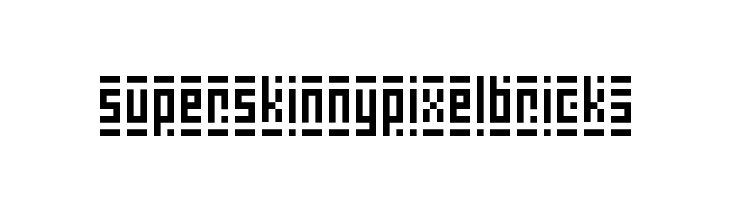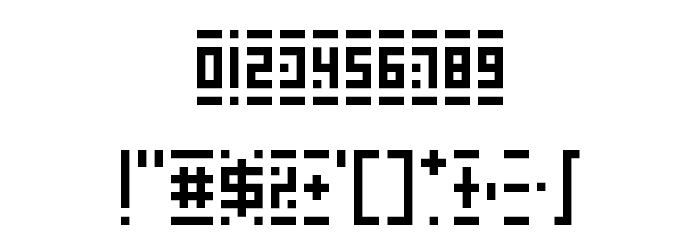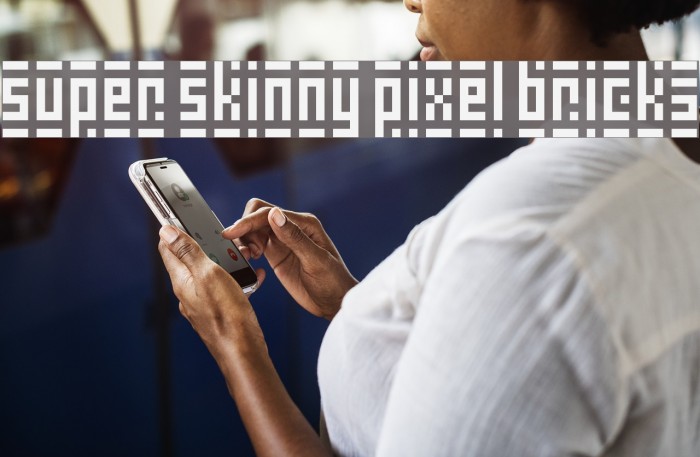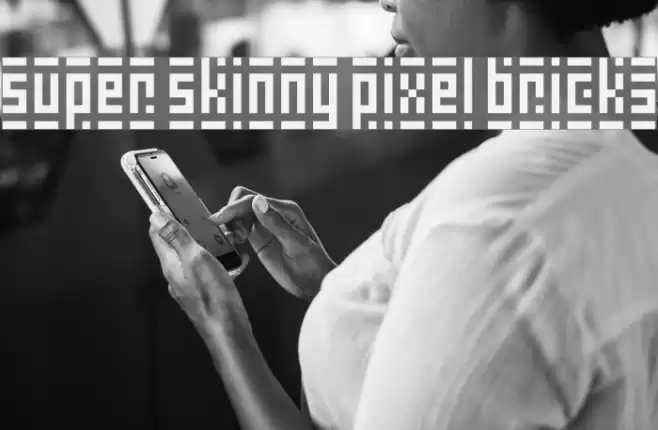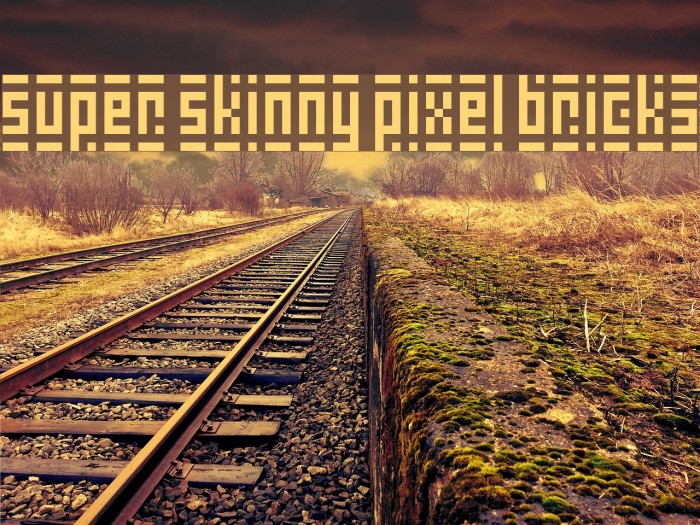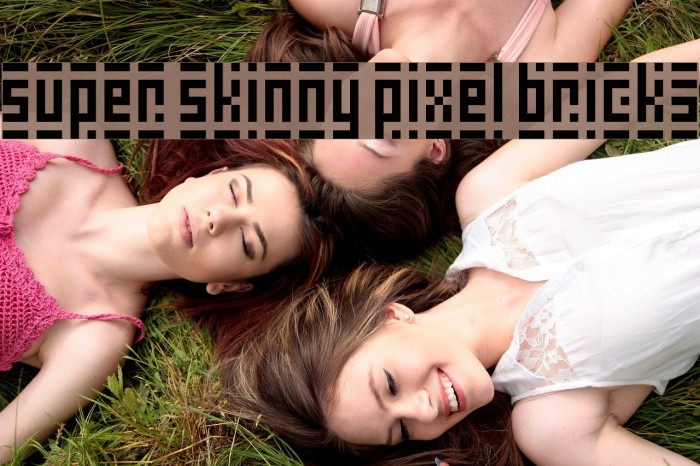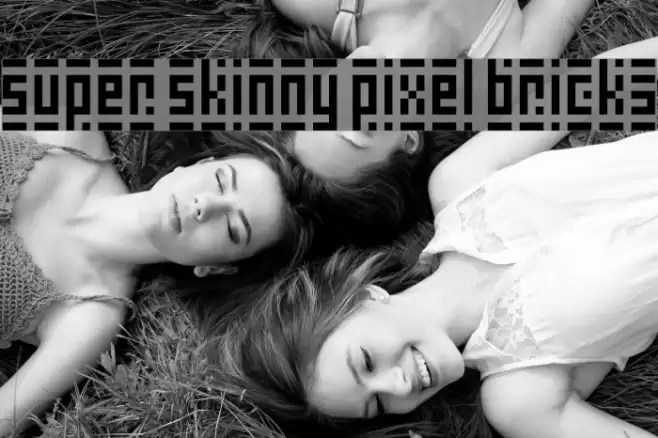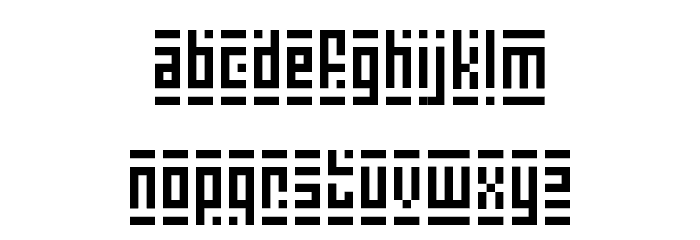
Super Skinny Pixel Bricks Font
Super Skinny Pixel Bricks Description
This font features a highly geometric and pixelated design, reminiscent of digital or retro gaming aesthetics. Each character is constructed with a series of uniform, rectangular blocks, giving it a distinctly modular appearance. The uniformity in stroke width and the grid-like structure contribute to a cohesive and structured look. The uppercase and lowercase letters maintain a consistent height, enhancing the font's uniformity. Numbers and special characters follow the same design principles, ensuring visual harmony across all glyphs. The font's unique style makes it ideal for projects that require a digital or futuristic feel.
A geometric, pixelated font with a modular and digital aesthetic from Uncategorized fonts.
- Proposed Projects: Ideal for video game design, digital art projects, tech-themed posters, and retro-style branding.